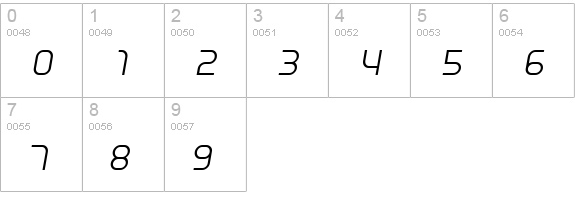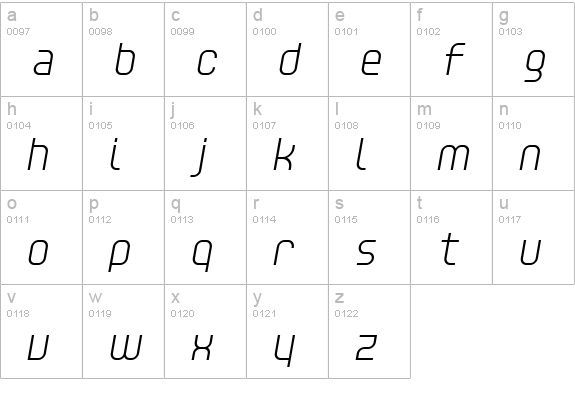
Unisect Oblique is a distinctive, italic variant in the Unisect typeface family \xE2\x80\x94 well suited to design and typography projects.
Unisect Oblique font is a modern and stylish typeface that effortlessly combines elegance and versatility. Its unique oblique design adds a touch of sophistication to any project, making it perfect for both professional and creative endeavors. With its clean lines and sleek appearance, Unisect Oblique exudes a sense of professionalism and refinement. It is ideal for use in logos, branding materials, advertisements, and editorial designs where a contemporary look is desired. This font's versatility shines through in its ability to adapt to various design contexts. Whether it is used for headlines, body text, or captions, Unisect Oblique maintains its legibility and readability, ensuring that your message is effectively communicated to your audience. One of the best features of Unisect Oblique font is that it is freely available to download at FontsMarket.com. This means that you can easily access and utilize this fantastic typeface in your projects without any limitations. Its availability for free adds tremendous value to this already exceptional font, making it accessible to a wide range of designers and creatives. So, if you're looking for a font that effortlessly combines elegance, versatility, and the added advantage of being free, Unisect Oblique font is the perfect choice for you. Download it now at FontsMarket.com and elevate your designs to new heights.